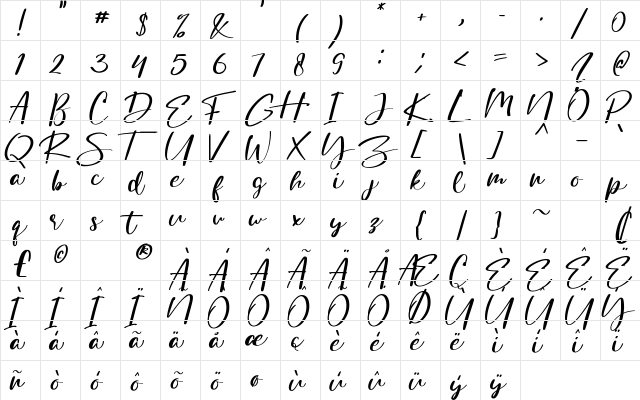
Lovin Summer Regular
| Designer | Laire Banyu Sandi Pawenang |
Design Context for Lovin Summer Typeface
Lovin Summer is a composed and adaptable typeface that performs quietly and consistently across a wide range of design contexts.